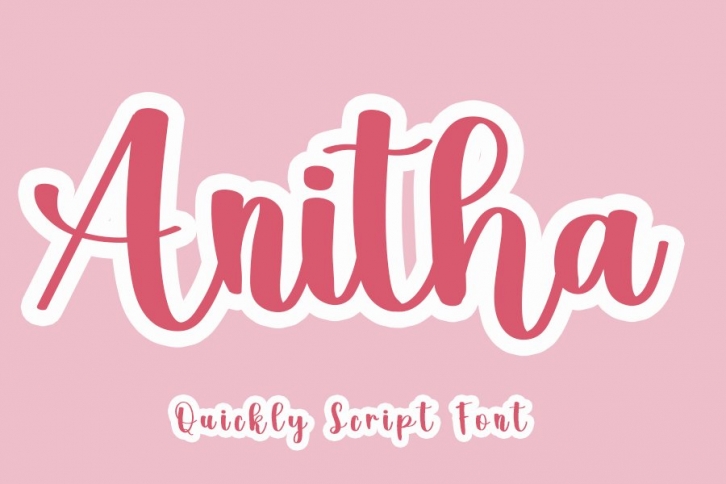
Anitha is a trendy and unique font with an authentic style. It was designed by FreshType INK and it's a great choice for creative people who need such a font. It was released on December 21, 2021 and the file size is 10.1 MB. Anitha will add an organic vibe to any design idea!